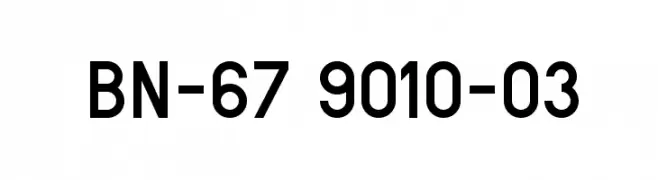
Owned-Regular Font
A bold, handwritten font with a dynamic and playful style.
Architects Daughter Regular Font
A casual, handwritten font with a playful and approachable style.
Megrim Font
A geometric, minimalist font with sharp angles and clean lines.
Shadows Into Light Font
A casual, handwritten font with smooth, flowing letterforms.
AtkinsonHyperlegible-Bold Font
A bold, modern sans-serif font focused on clarity and readability.
Stroud Font
A bold, sans-serif typeface with strong, uniform strokes and modern appeal.
BN-67 9010-03 Font
A bold, modern sans-serif font with clean lines and geometric structure.
Kankin Font
A bold, geometric font with clean lines and a modern appearance.
josephsophia Font
A lively and elegant script font with a playful yet sophisticated flair.
Selawik Semibold Font
A modern, semi-bold sans-serif font with excellent readability and versatility.
Selawik Bold Font
A bold, modern sans-serif font with clean lines and uniform strokes.
King Richard Font
A bold, modern font with a dynamic and slightly condensed style.
Selawik Font
A clean, modern sans-serif font with uniform geometric letterforms.
KG A Teeny Tiny Font Font
A playful, handwritten font with a casual and friendly style.
DEC-Terminal-Modern Font
A modern, monospaced font with a clean, geometric design.
Carbon Phyber Font
A bold, geometric font with a carbon fiber texture pattern.
KG A Teeny Tiny Heart Font
A playful, handwritten font with rounded strokes and heart accents.
Decoy Regular Font
A modern, geometric font with playful rounded terminals and consistent stroke width.
JustMeAgainDownHere Font
A casual, playful handwritten font with a dynamic and lively feel.
Selawik Light Font